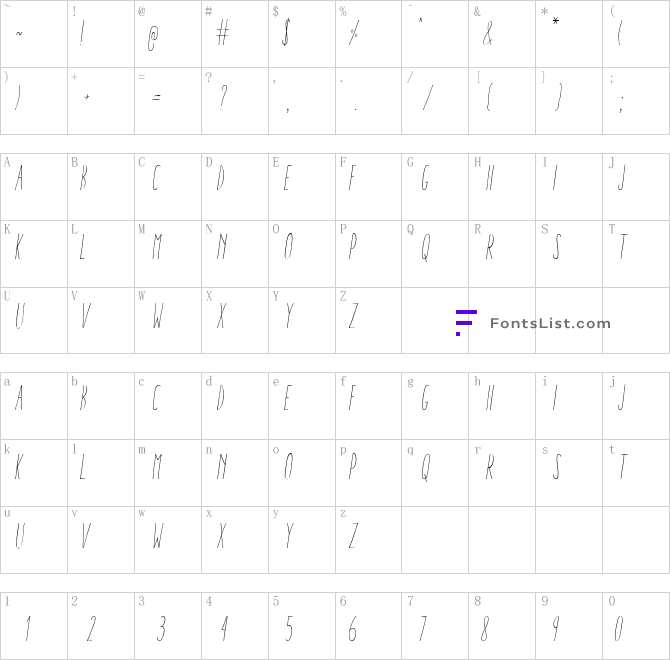
- Font Name:Aracne Ultra Condensed
Aracne-Ultra-Condensed-Light-Italic-copy-1-.ttf is a very beautiful artistic font, Aracne-Ultra-Condensed-Light-Italic-copy-1-.ttf is widely used in the design and printing of various books and pictures,Aracne-Ultra-Condensed-Light-Italic-copy-1-.ttf has a strong visual impact,Aracne-Ultra-Condensed-Light-Italic-copy-1-.ttf is a commonly used font in newspapers, magazines and books, and is used in posters, e-commerce Poster design, store design, logo design, font design and other fields.Aracne-Ultra-Condensed-Light-Italic-copy-1-.